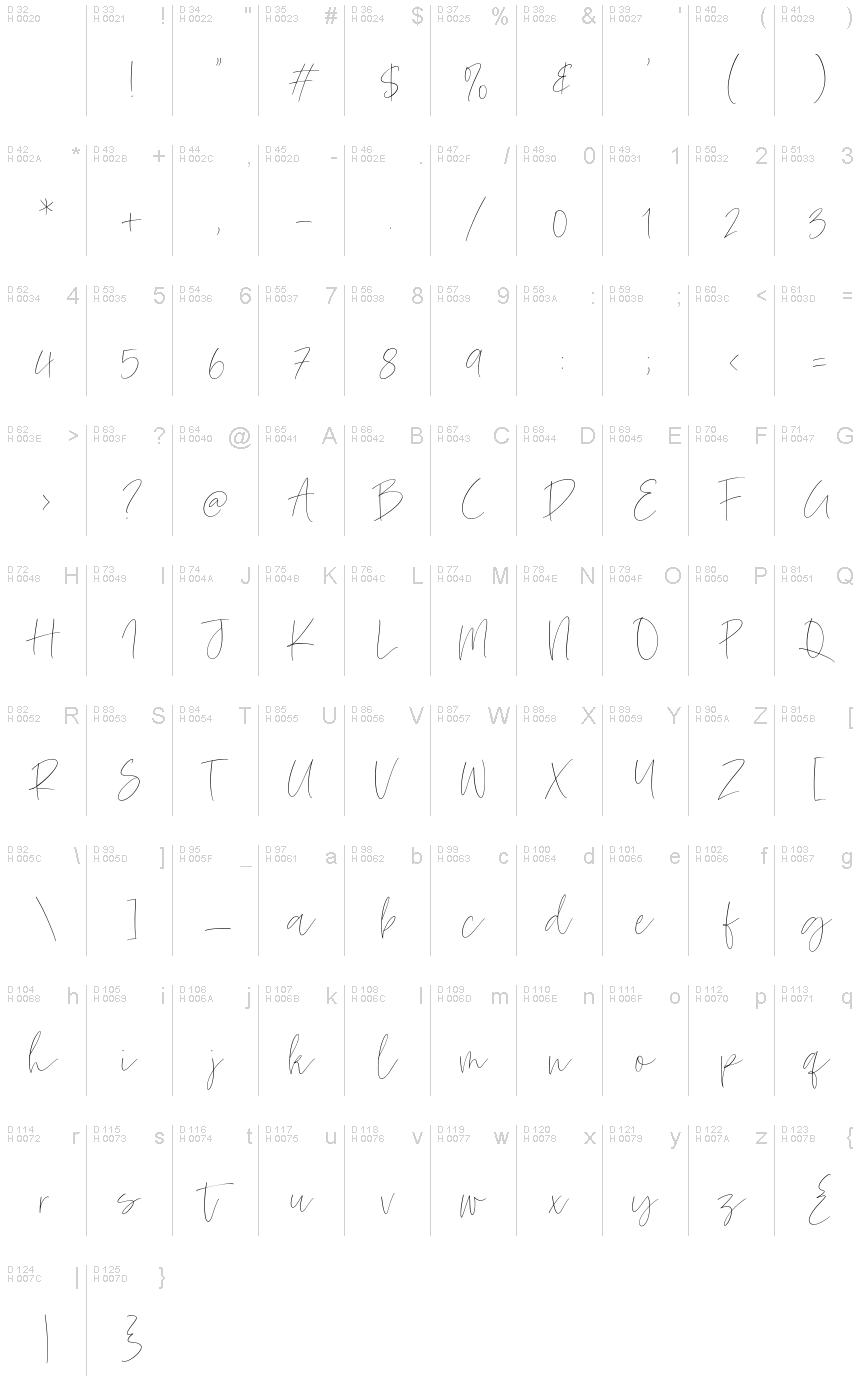
Sweet Harmony
Sweet Harmony font is a delicate and refined font designed by Balpirick Studio. Sweet Harmony a handwritten sans serif font that is cursive, flowing, elegant and has thin strokes. Designed with low contrast details to make it look casual yet informal style that gives off a hand-drawn appearance. Add it to your titles, wedding invitations, web layouts and as well consider this for children themes with its smooth curves for the sweet design!
Use Sweet Harmony for Youtubes thumbnails or descriptions or anything that requires playful yet cool handwriting profile title fonts like wallpapers or prints projects requiring cute design elements graphically used as branding pieces (headlines logos).